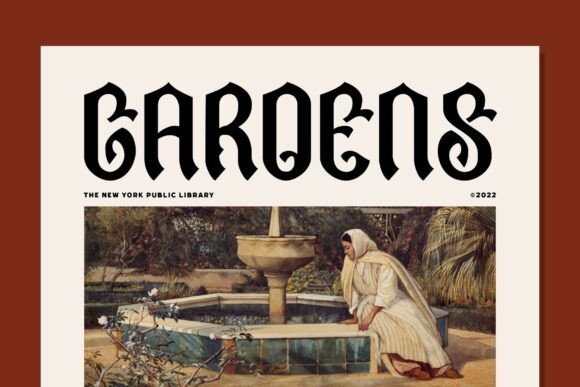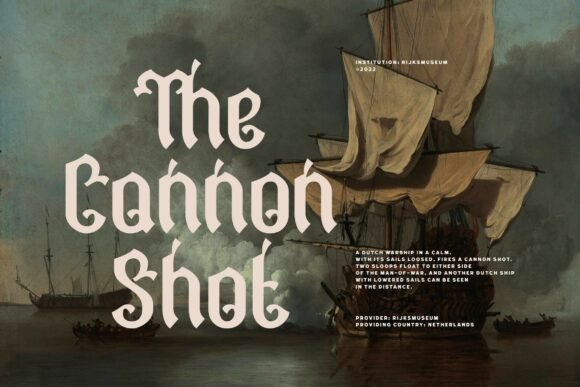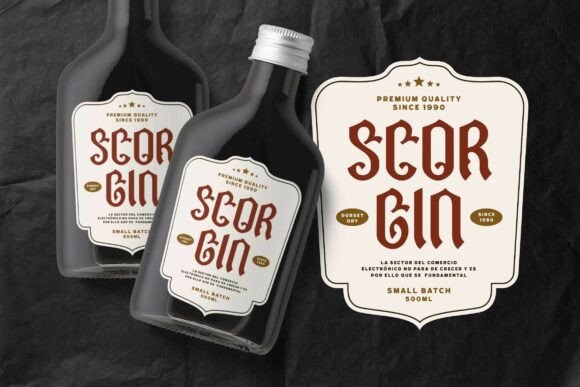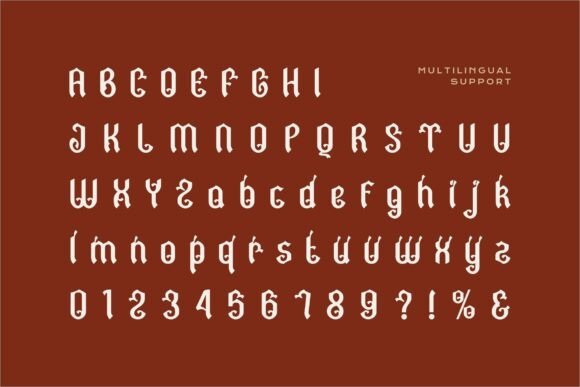
Introduction to Kole Gemols Font
Kole Gemols font is a modern interpretation of traditional Blackletter, featuring thick and angular letterforms and ornate decorative details.
This font combines historic Gothic style with a contemporary touch, showcasing consistent stroke thickness that enhances readability while maintaining the dramatic feel of medieval script This font’s intricate curves and sharp terminals deliver a distinctive artistic look, making it ideal for headlines, titles, heritage branding, editorial design, classical concerts, or gothic-themed events.